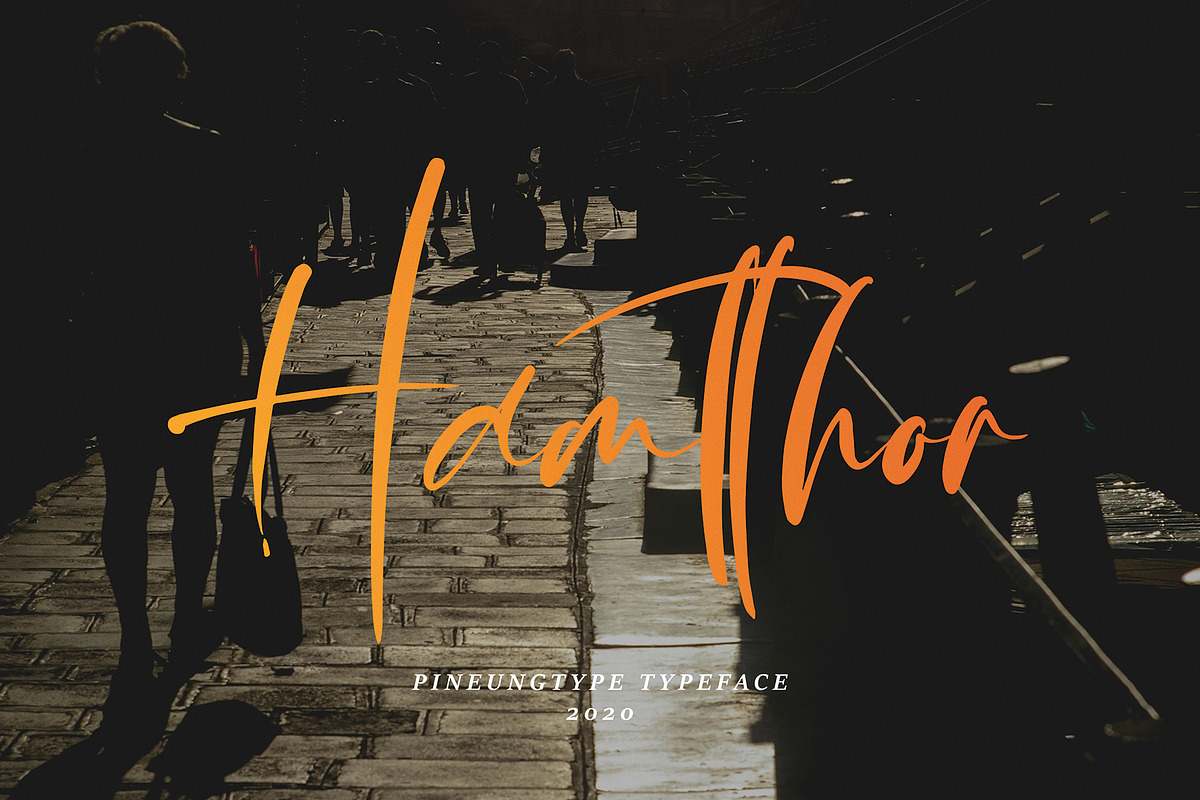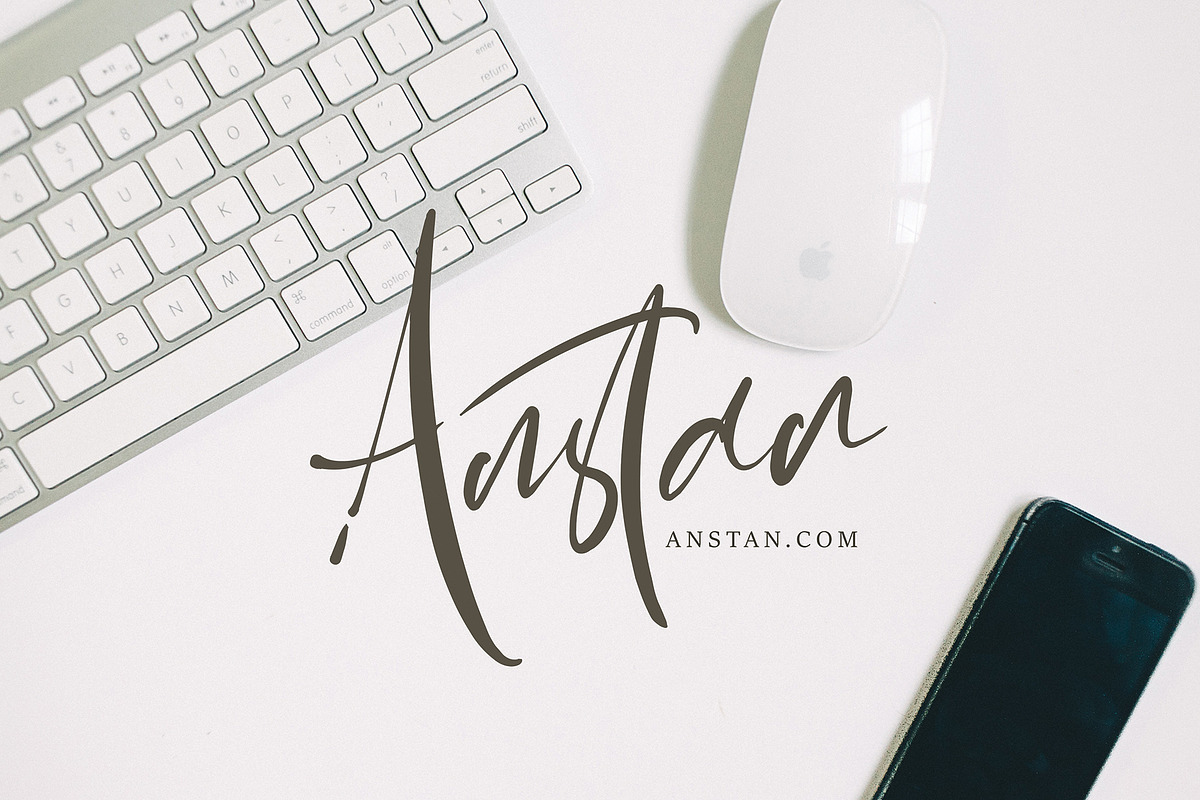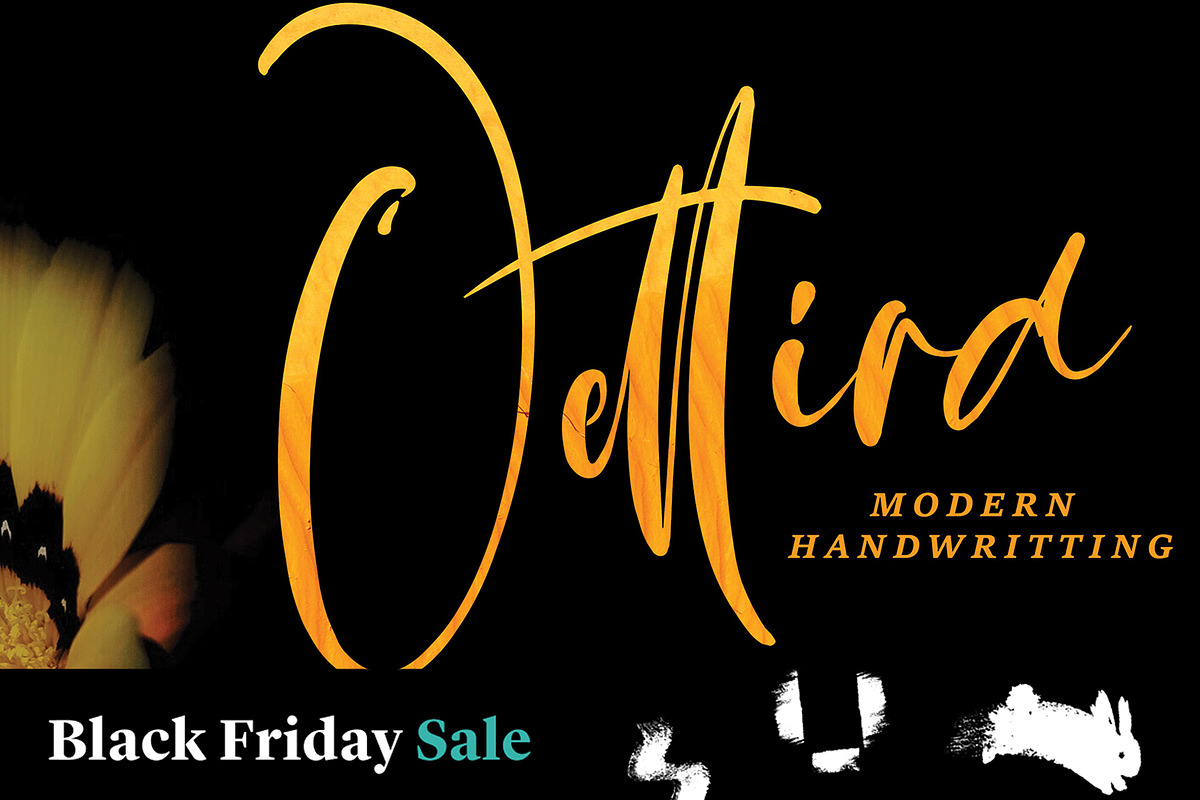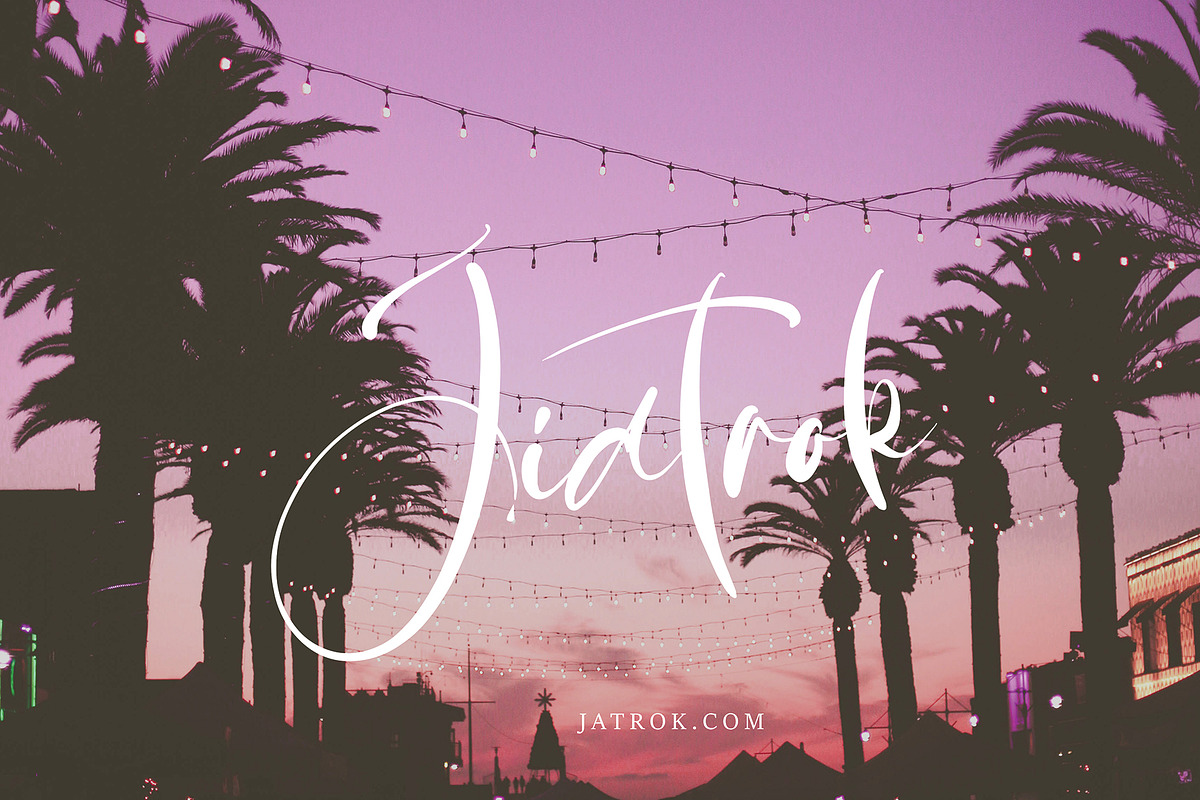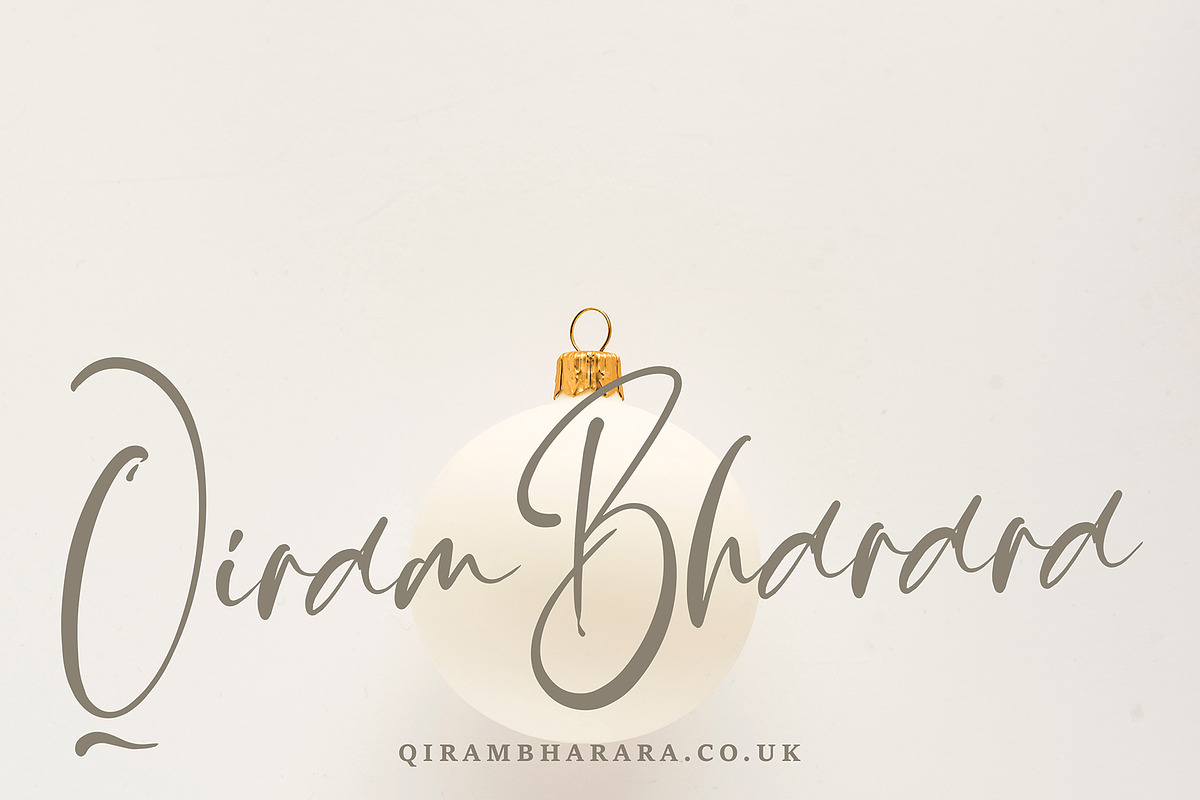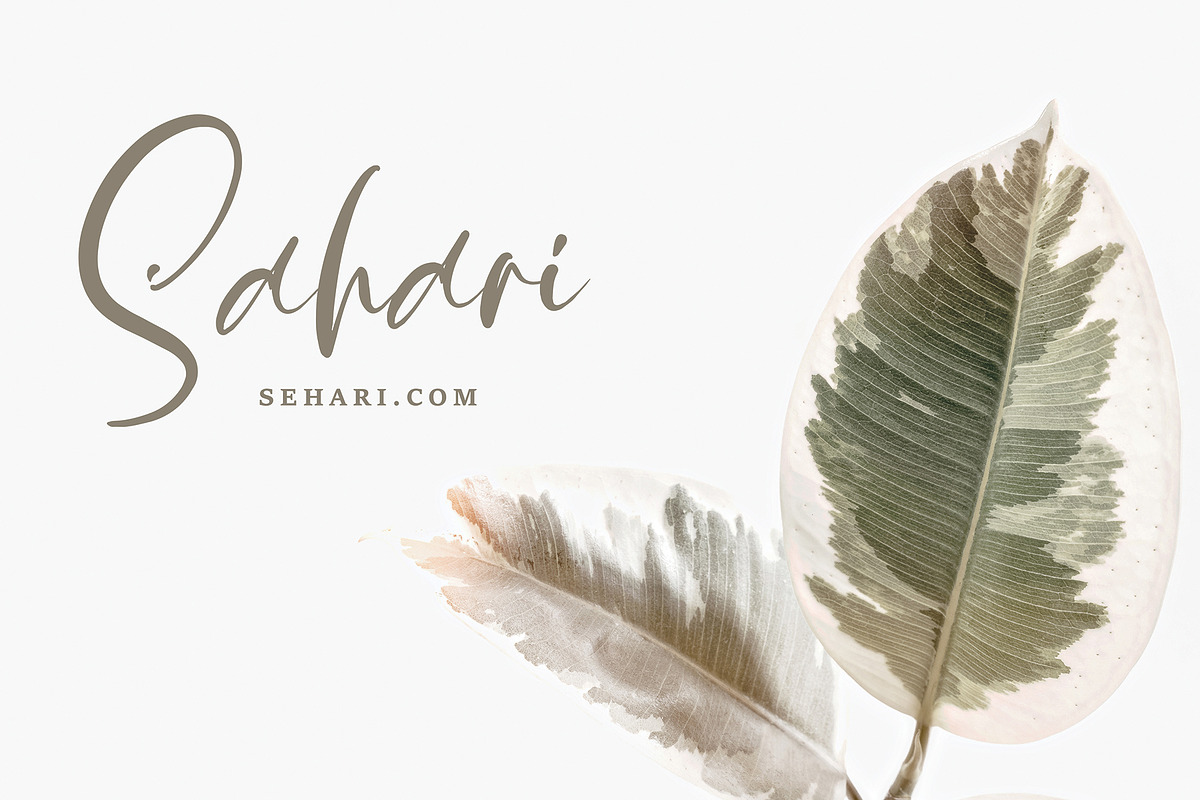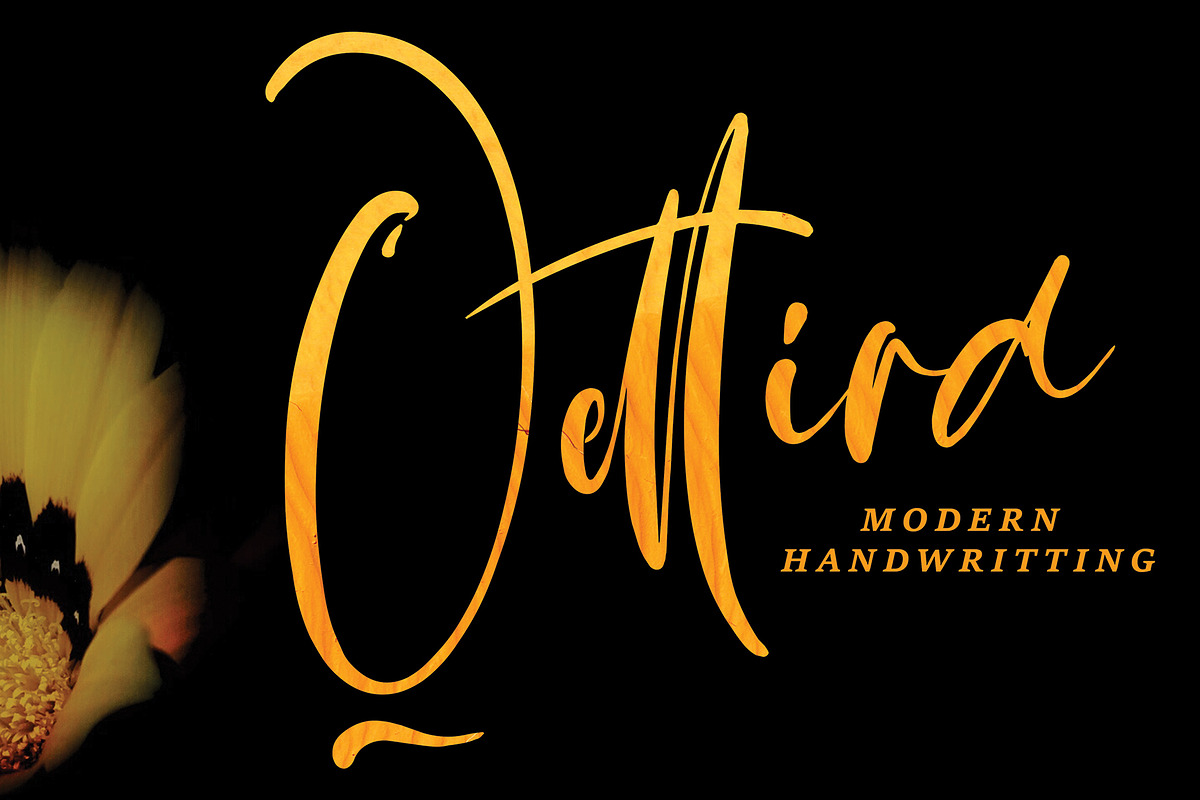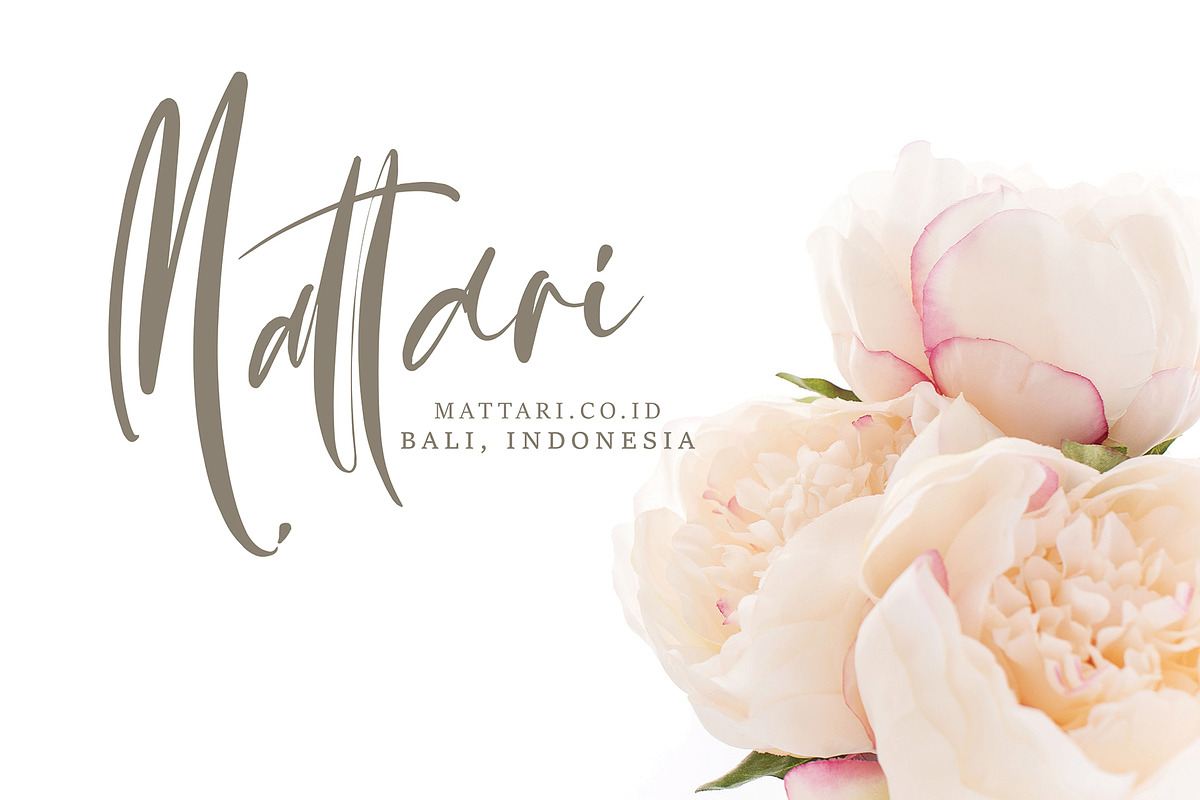
Qettara handwritten font with new style, this font will perfect for many different project ex: quotes, logo, blog header, poster, banding, fashion, apparel, letter, invitation, stationery, etc...